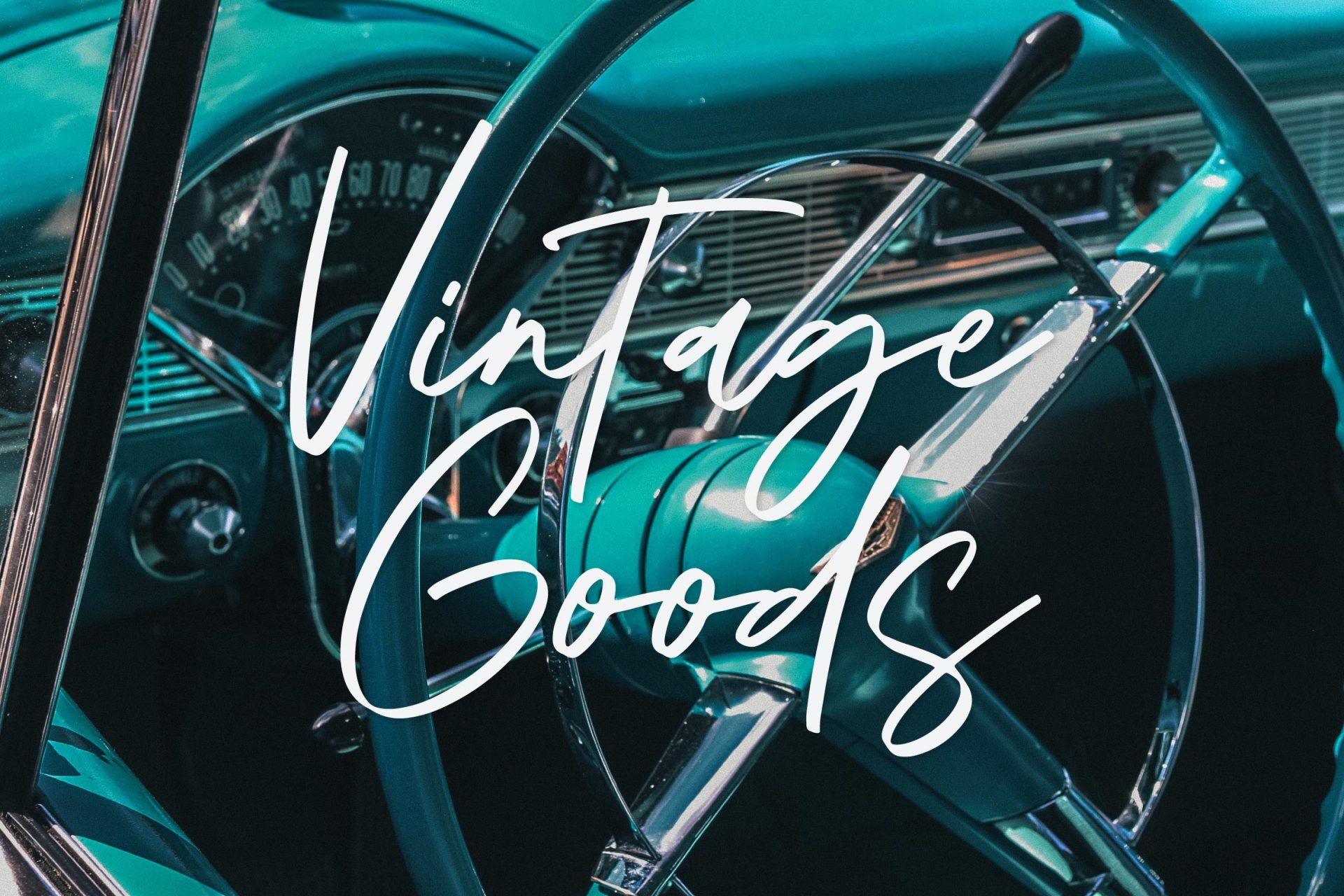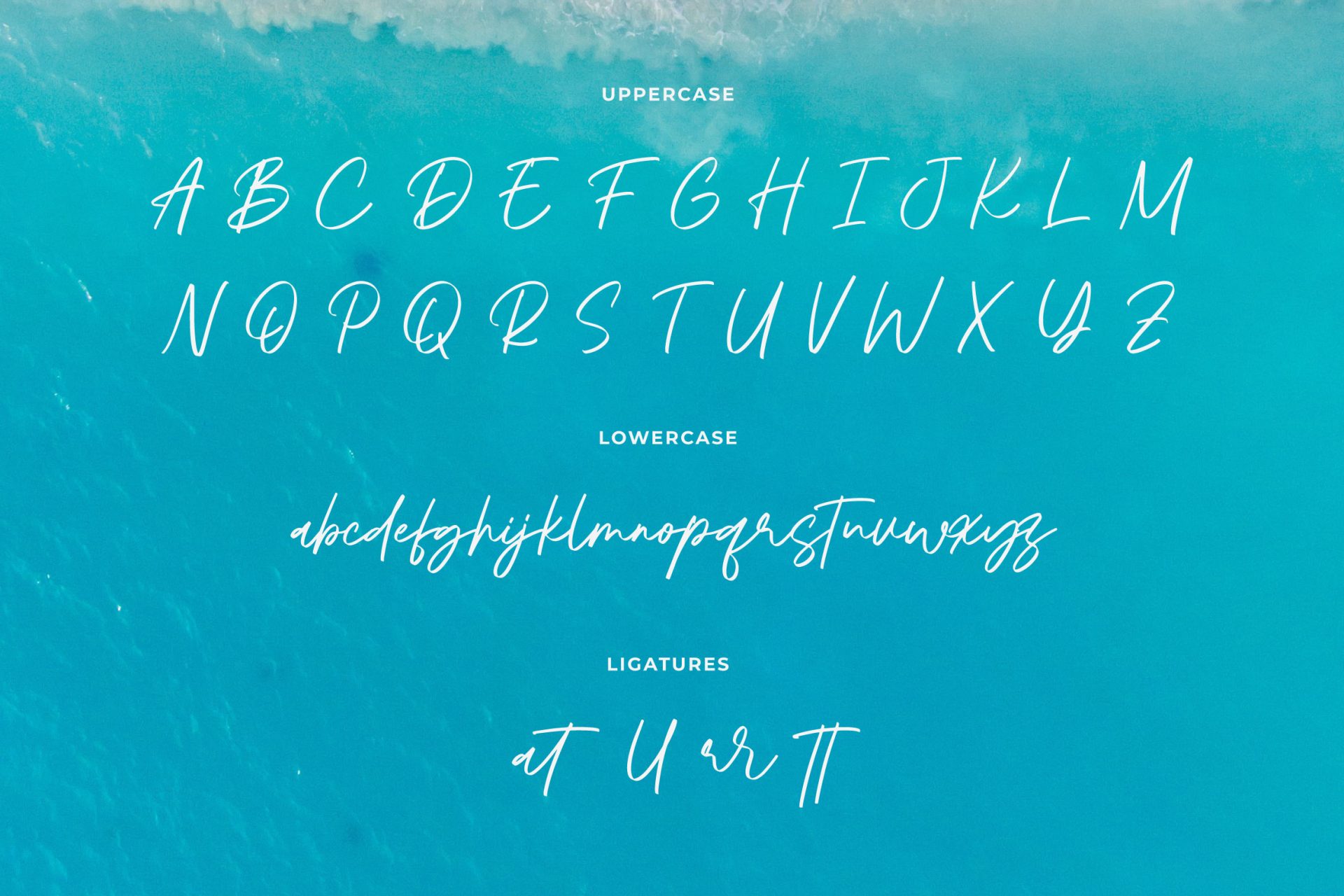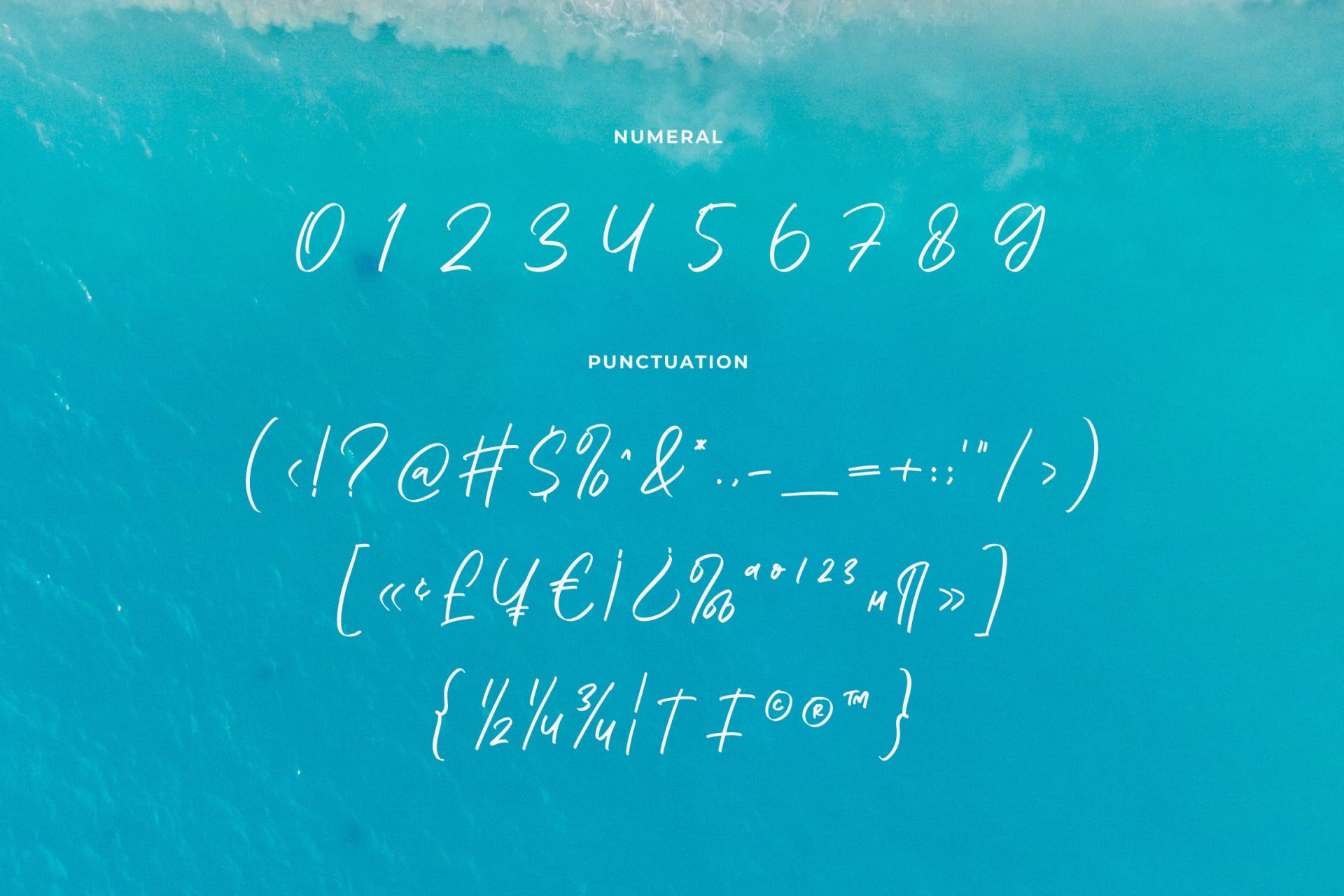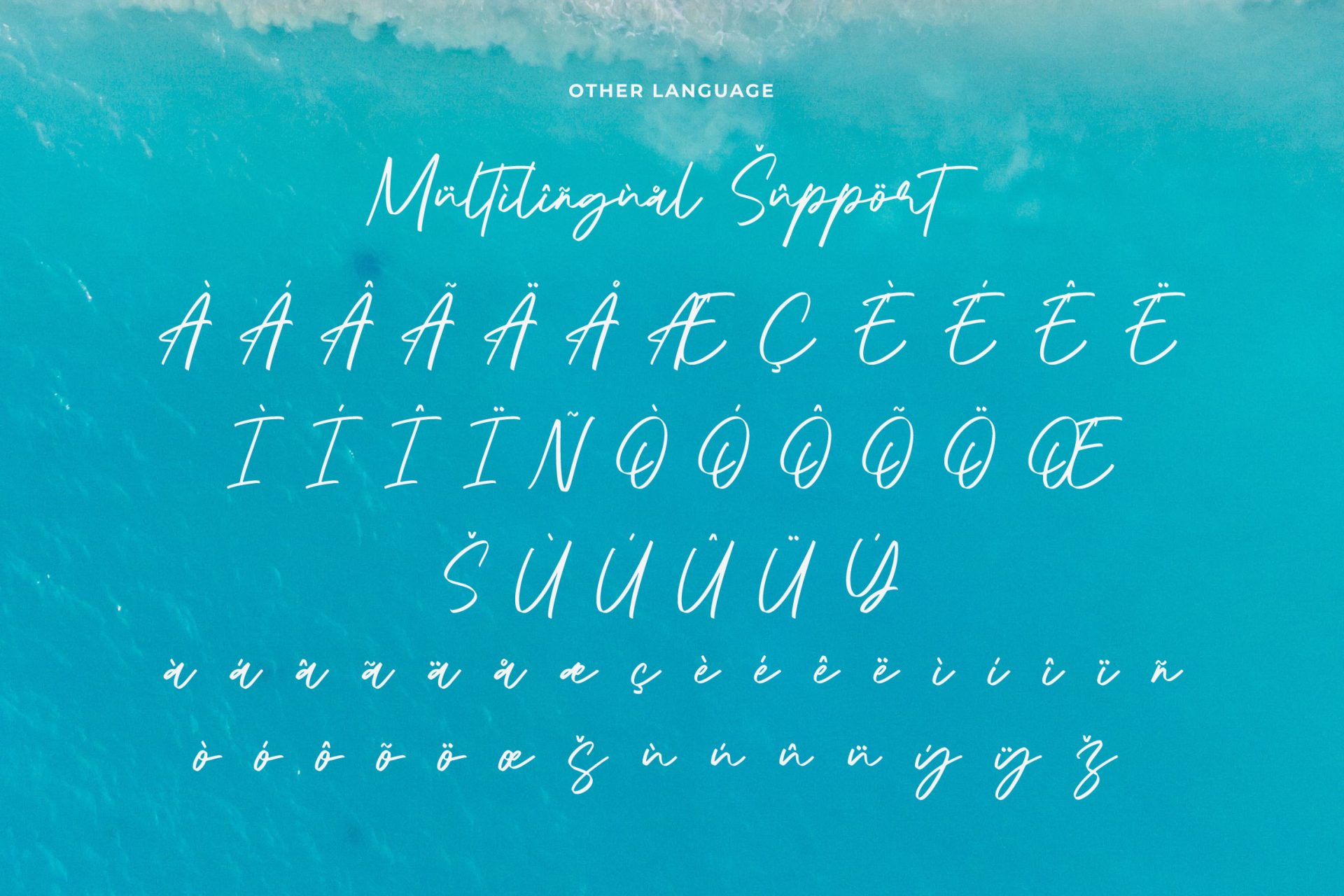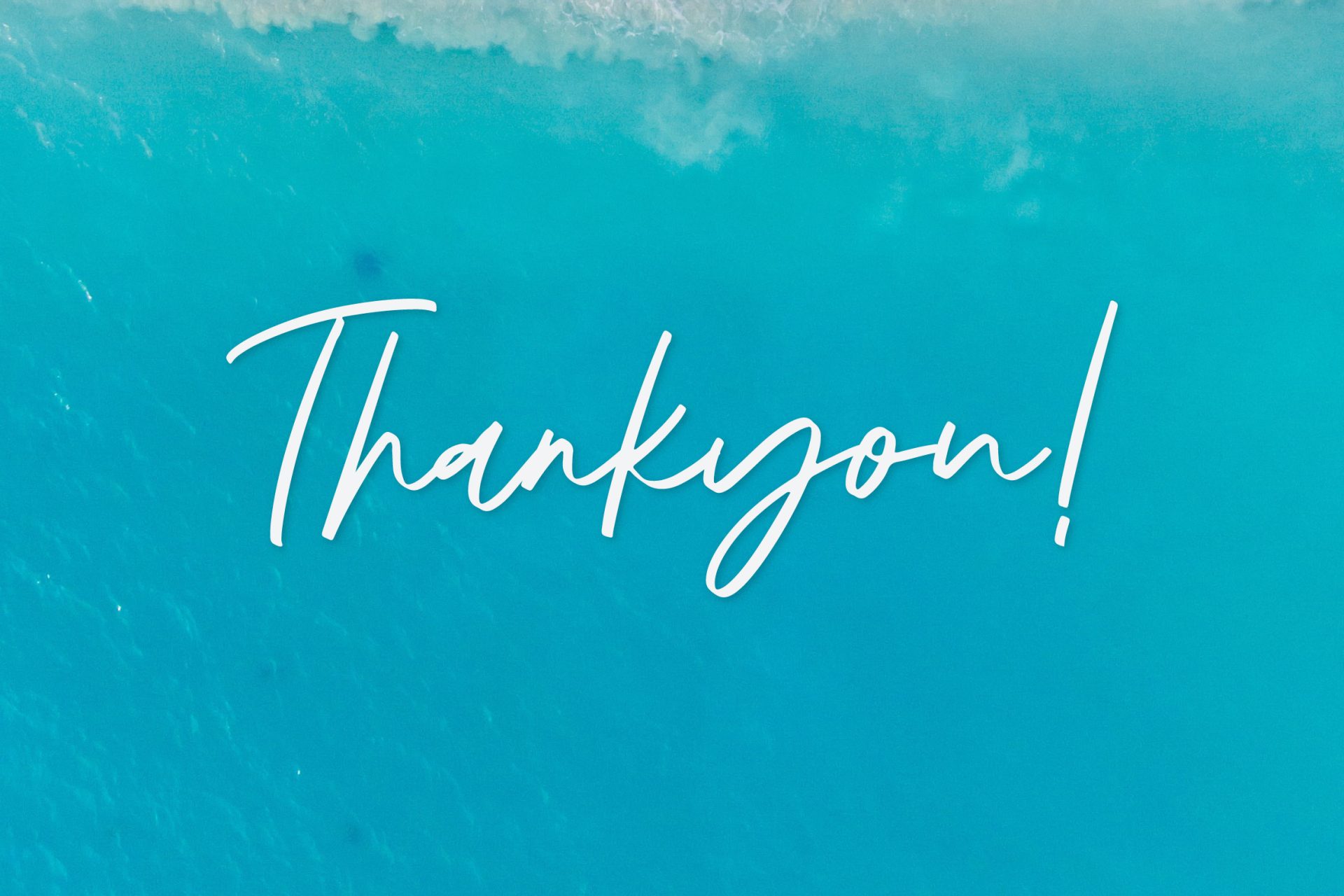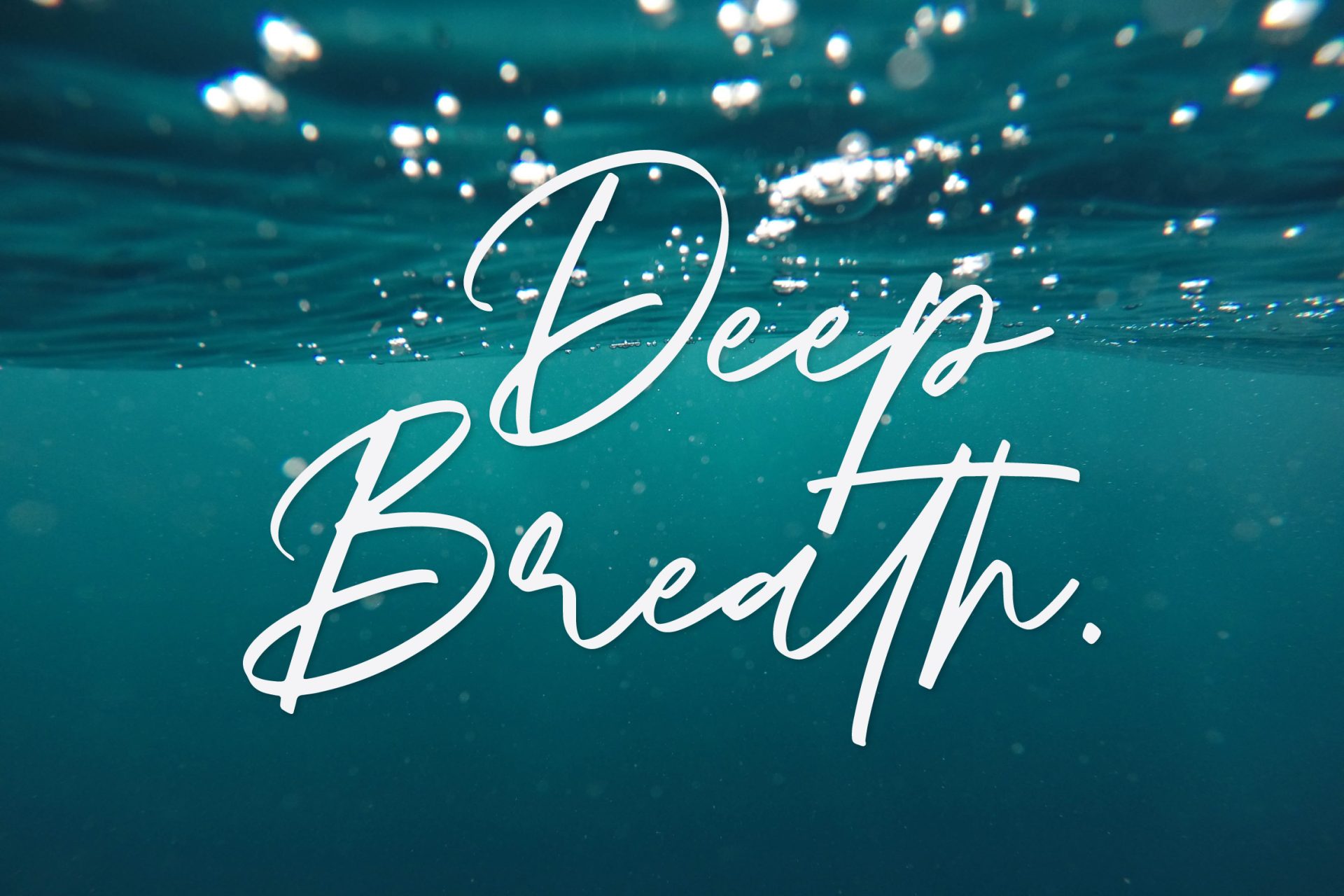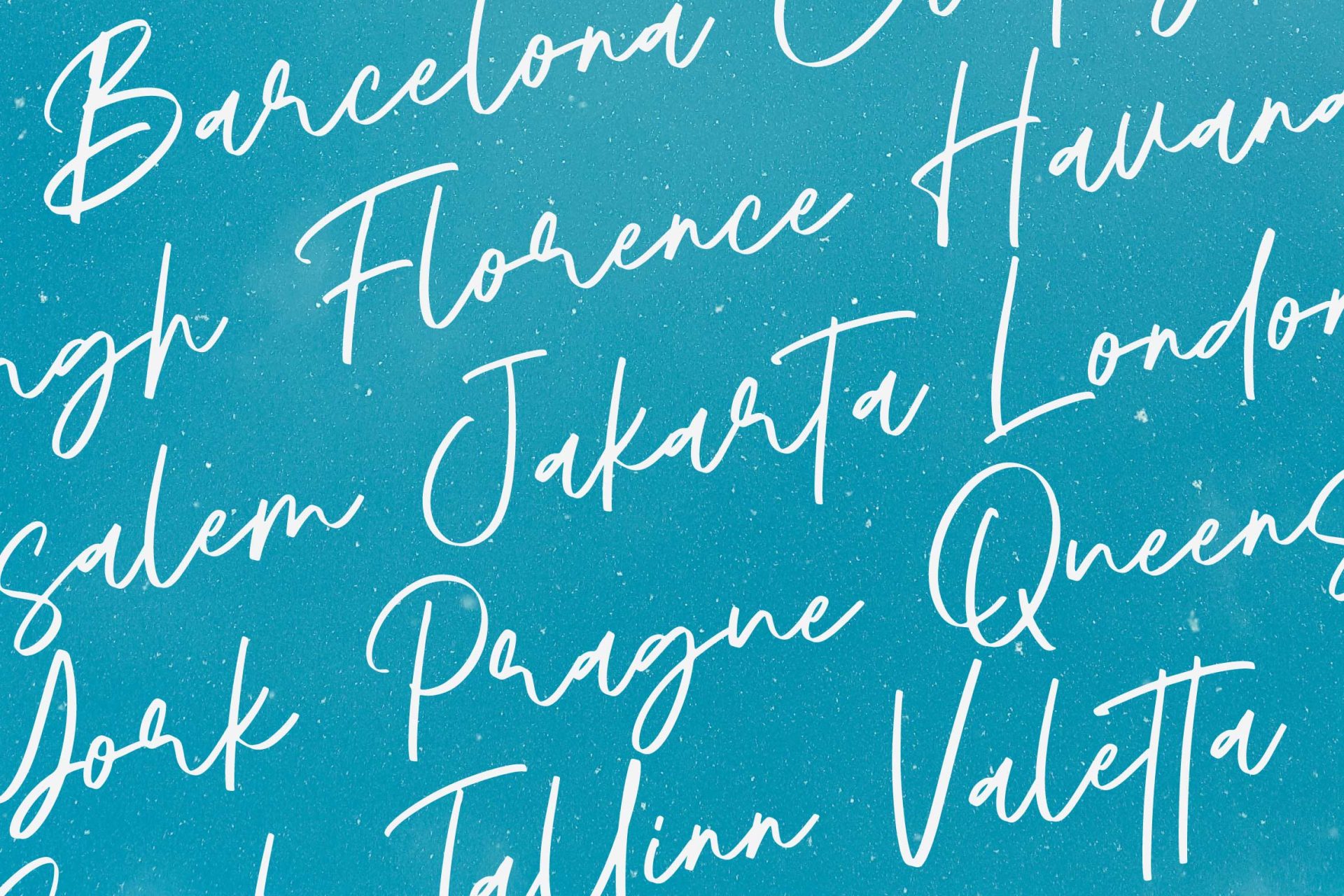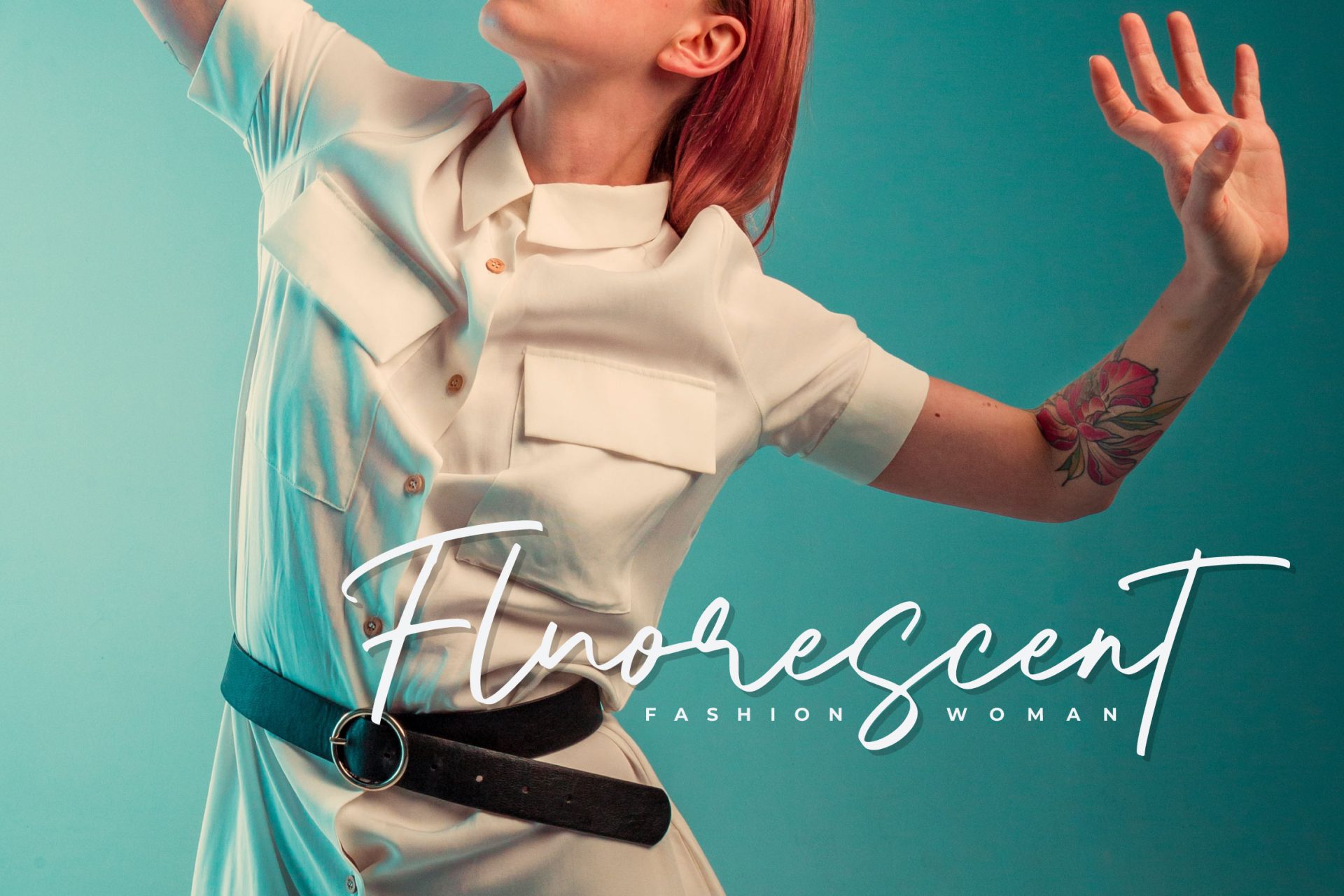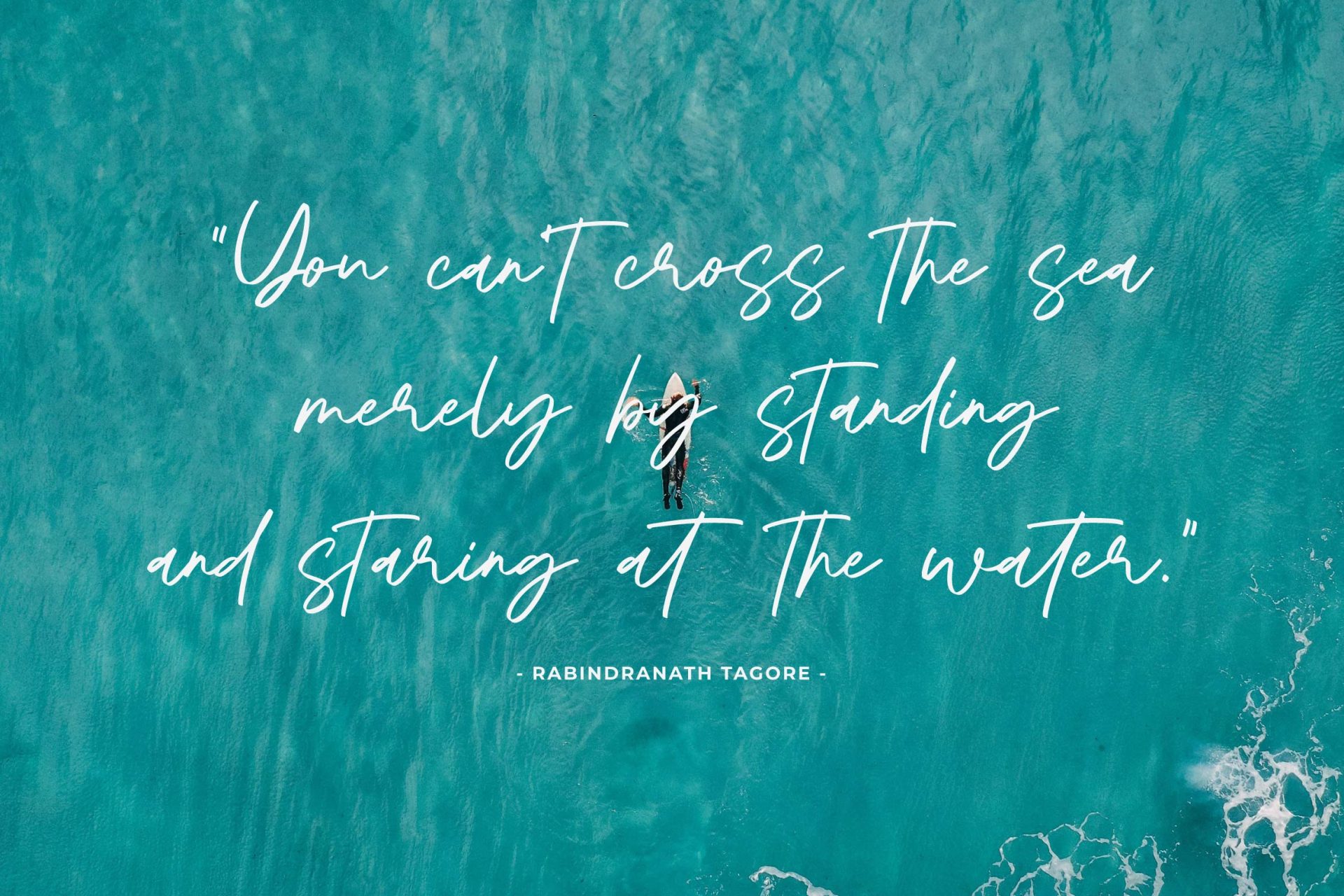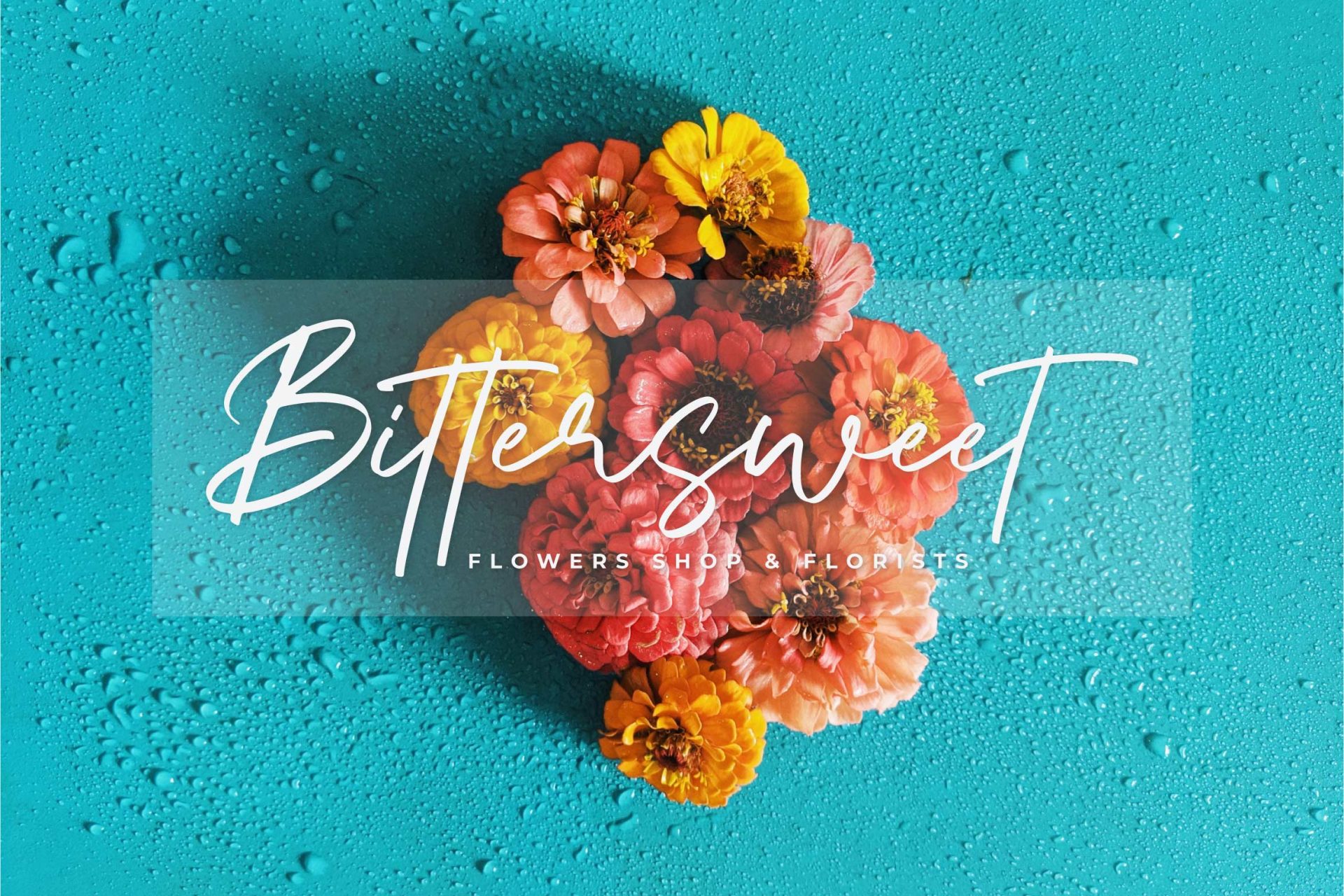
Introducing Aquatype Signature – Script Font by KrakenBox
Aquatype Signature is a fashionable sophisticated signature-style script with its own unique curves and an elegant inky flow. Its elegant, classy, and modern look
**Aquatype Signature is best for:**
– logos, branding, & Signatures.
– Flyers, Album cover, Magazine, & Advertisements.
– Website design , design blogs, & fashion.
– Quote graphics for social media.
– and also it works great for other projects.
– Character Set (Uppercase and Lowercase)
– Numerals and Punctuation (OpenType Standard)
– Accents (Multilingual characters)